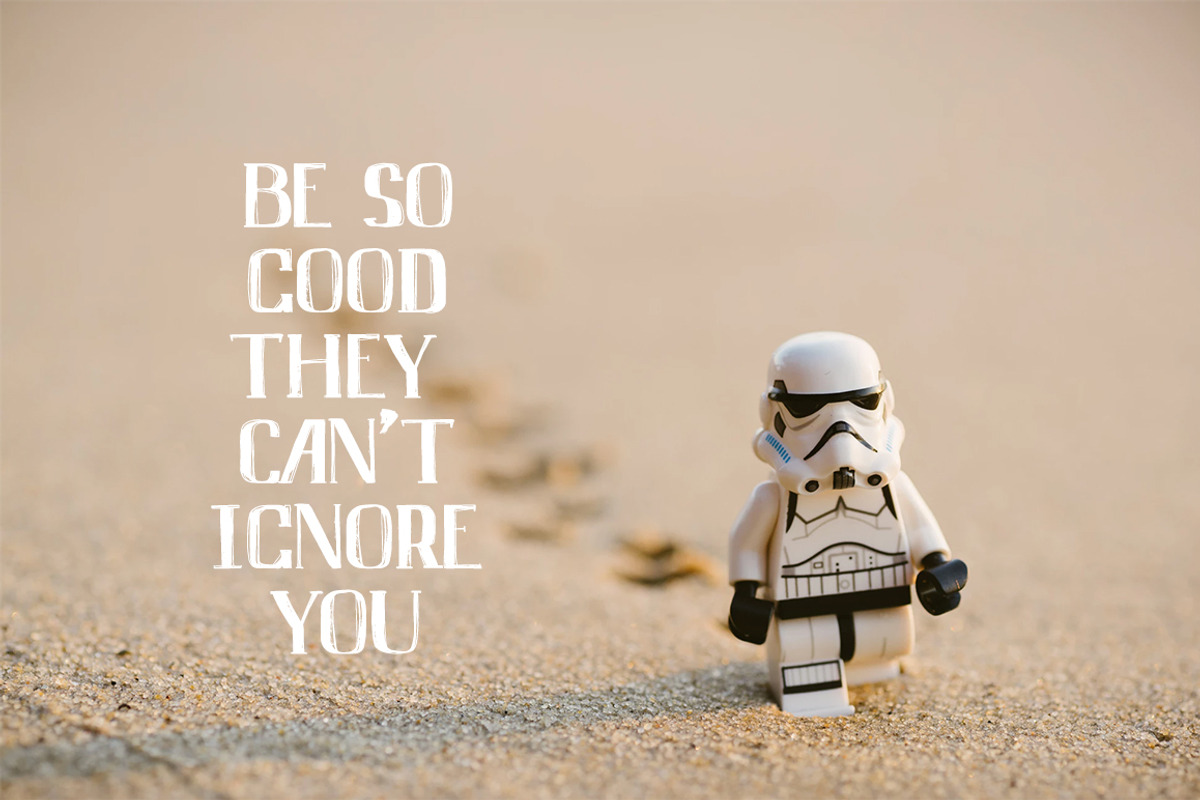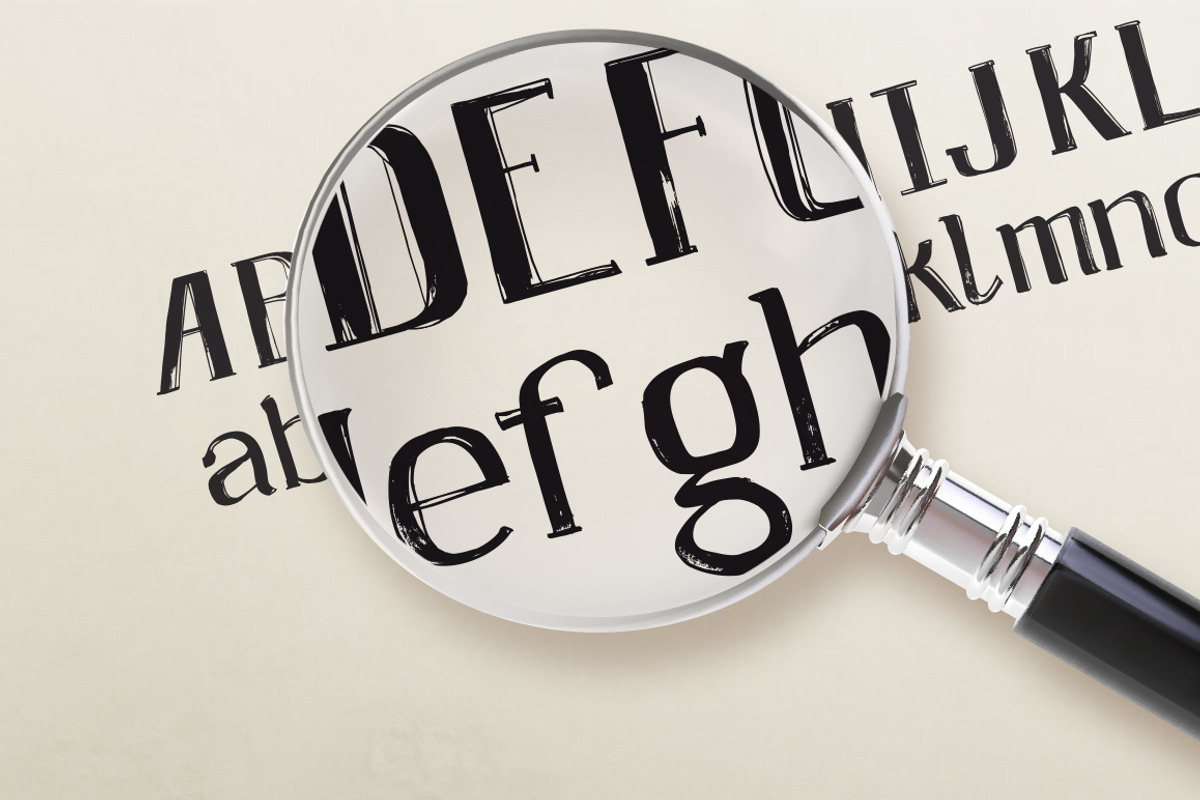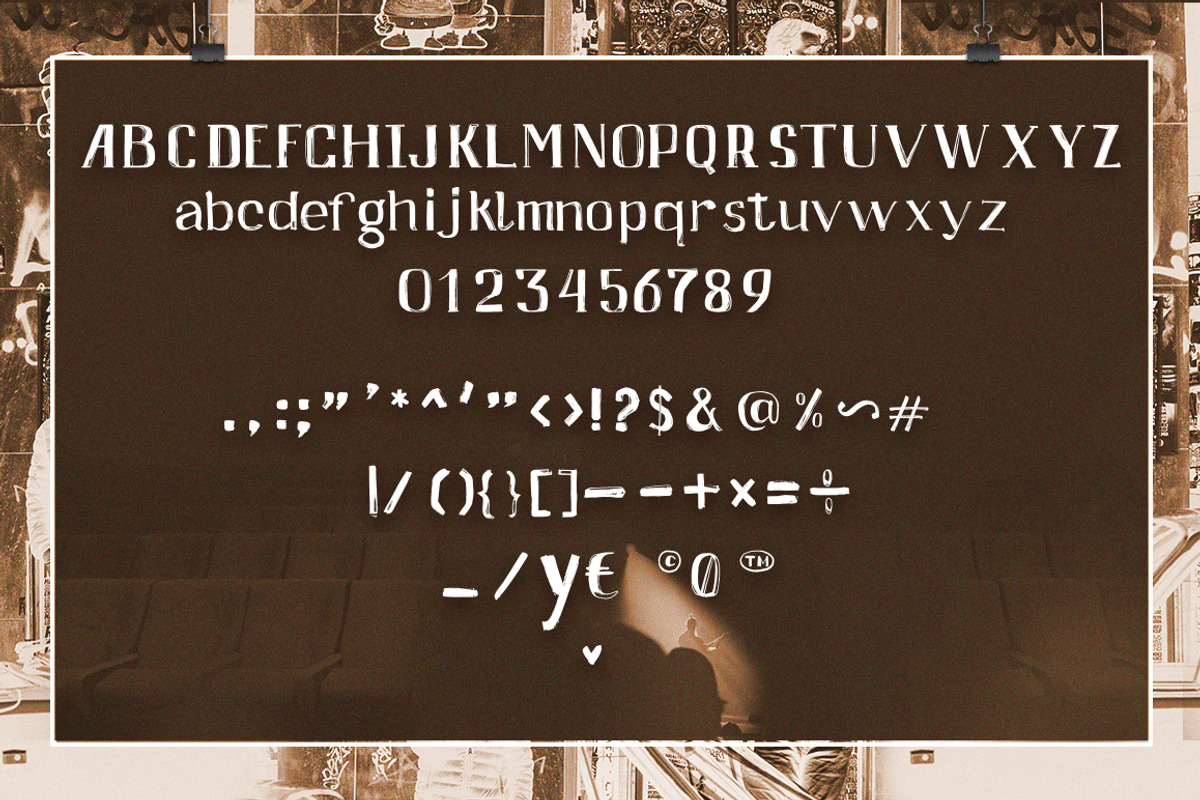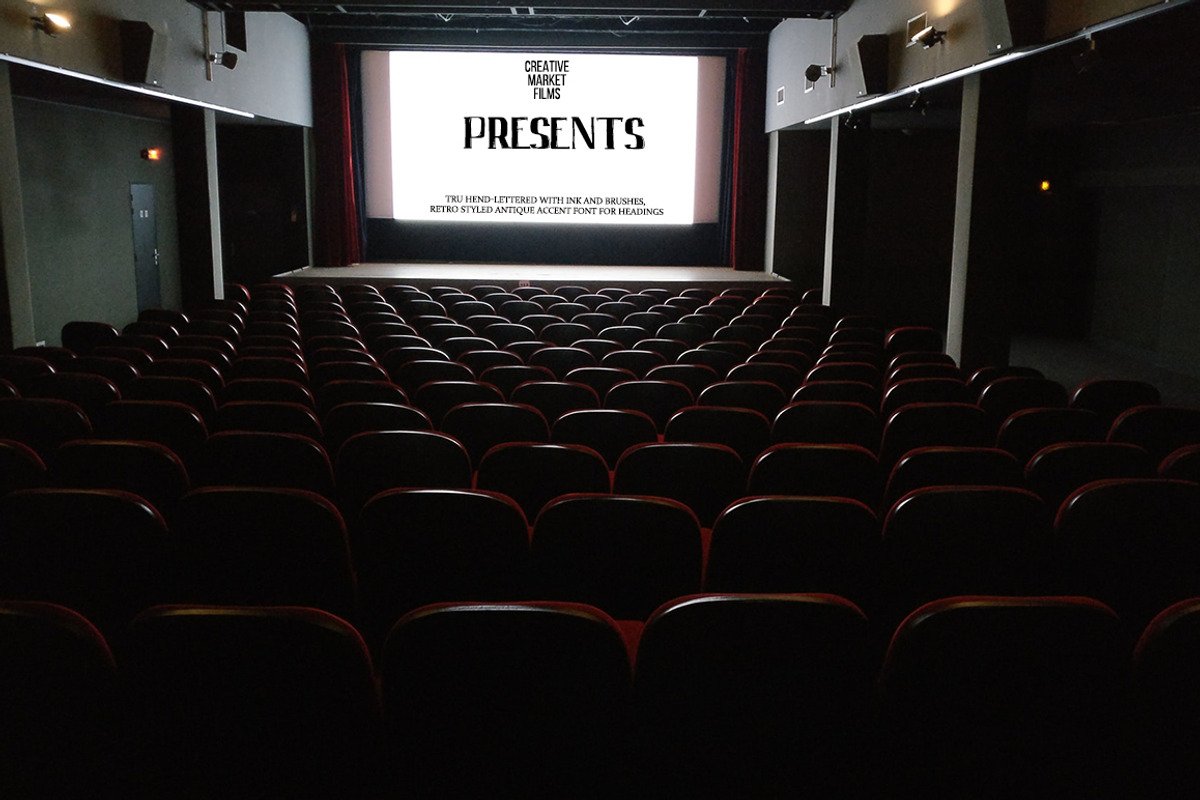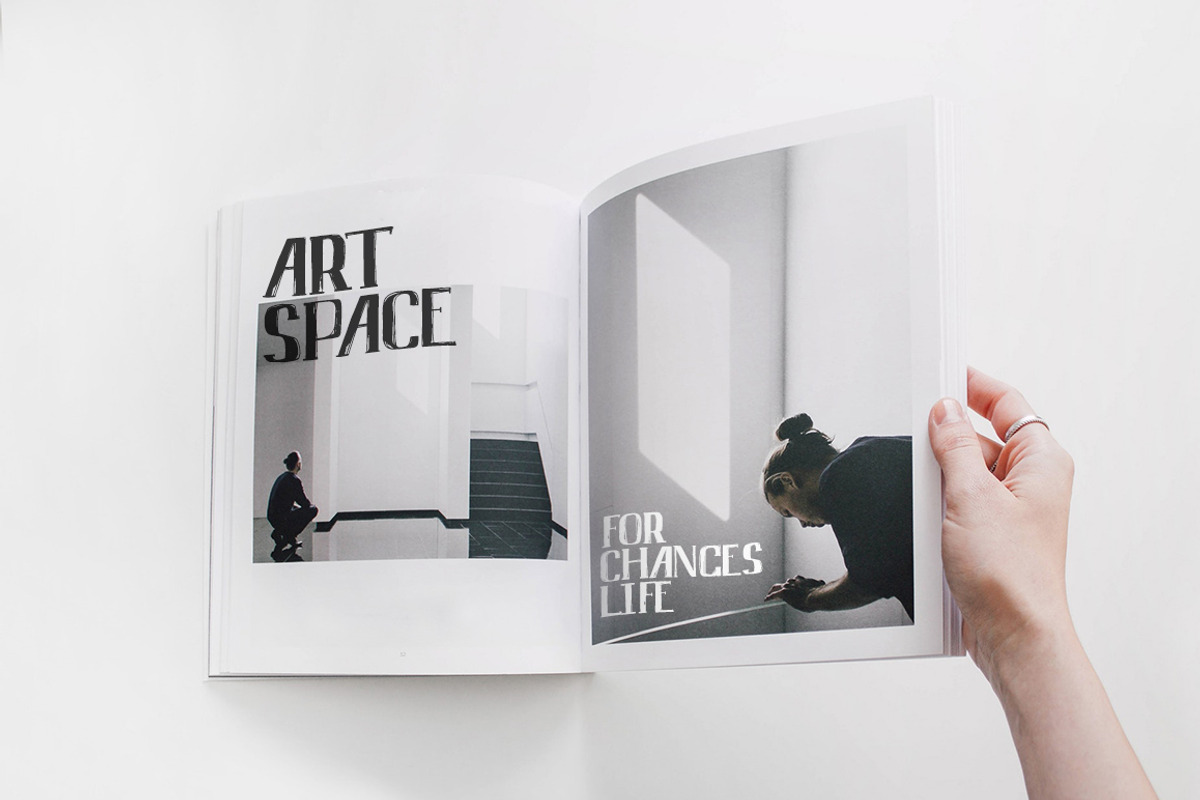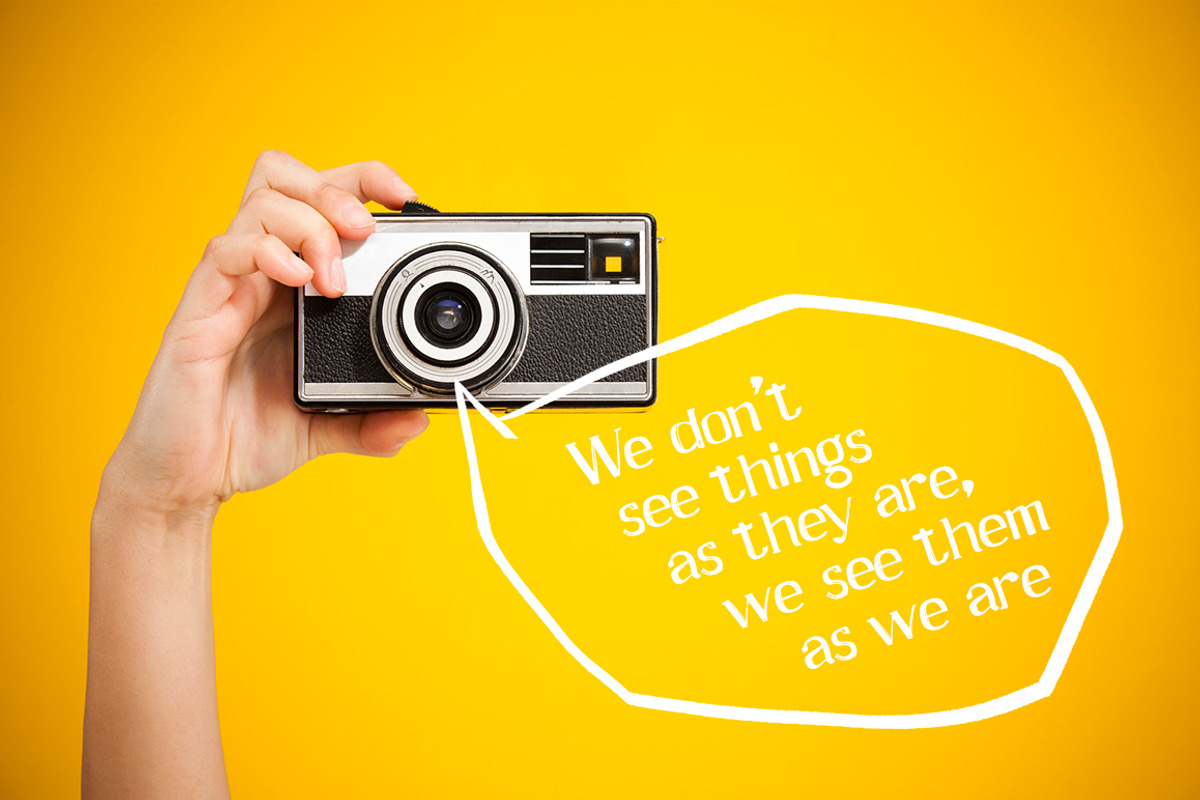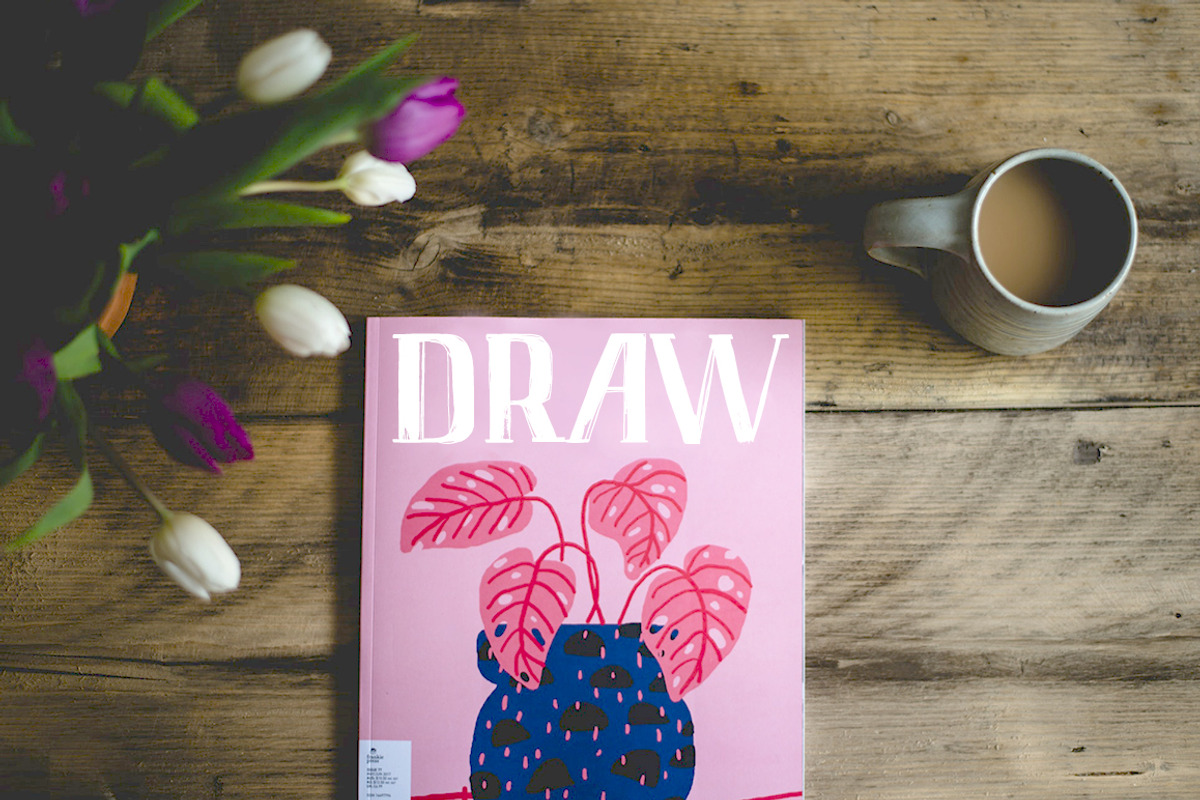
AFISHA PREMIERE/ hand lettered font
The AFISHA PREMIERE handmade accented font was created by Illustrator for artistic and creative works. This font made with a flat brush and some markers. It brings a truly unique end result to the table. After the handmade process is complete, the font is scanned in, converted to vector, and made into a working typeface.
The font is perfect for for large headlines in posters, magazines, souvenirs. Recommended for decorating your illustrations and design projects.
AFISHA PREMIERE/ hand lettered font by artappler fits naturally into Branding, posters, packaging, typography.